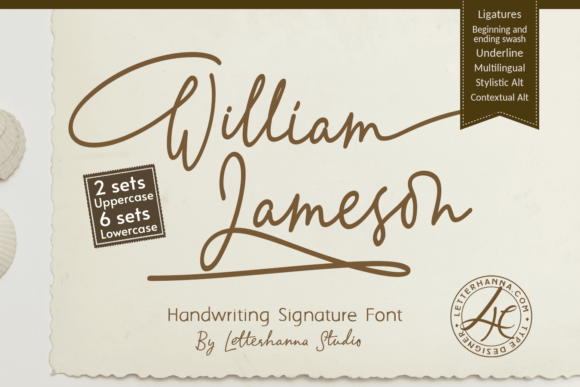
Behold, a script font family that'll ignite your creative passions and leave you spellbound. Allow us to introduce William Jameson Font, a monoline signature handwritten font, crafted with meticulous attention to detail and an innate understanding of visual aesthetics. Its distinct, well-rounded letters are a testament to the artistic mastery that went into its creation, resulting in a masterpiece that is both elegant and mesmerizing.
Immerse yourself in the incredibly versatile nature of William Jameson Font. Its fluid lines and captivating style effortlessly adapt to a diverse range of design projects, allowing you to express your creativity without limitations. Whether it's photography, watermarking, social media posts, advertisements, logos, branding, invitations, product designs, labels, stationery, wedding designs, product packaging, special events, or any endeavor that craves a touch of handwritten charm, William Jameson Font is your perfect companion.
The brilliance of William Jameson Font extends beyond its aesthetics. Crafted using cutting-edge open-type technology, it ensures a seamless connection between letters, creating a natural flow that mirrors the beauty of handwritten scripts. Additionally, the font features three types of tails for each letter, which automatically adjust based on the preceding letter, adding an extra layer of authenticity and realism to your designs.
Furthermore, William Jameson Font is PUA encoded, granting you effortless access to the entire glyph and swash collection. This opens up a world of creative possibilities, enabling you to incorporate intricate embellishments and flourishes into your designs with unrivaled ease. Unleash your imagination and create designs that captivate and inspire, leaving a lasting impression on your audience.
With William Jameson Font at your fingertips, you hold the power to transform your creative visions into stunning realities. Its versatile charm, exceptional functionality, and boundless creativity make it an indispensable tool for designers of all levels. Embrace the allure of William Jameson Font and embark on a journey of artistic expression that knows no bounds.